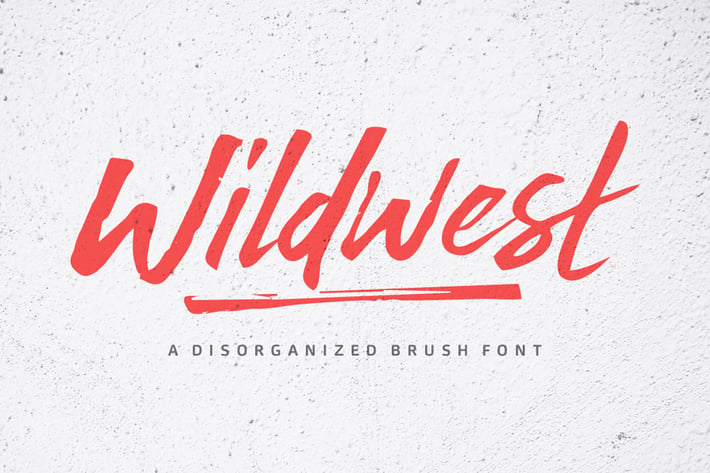
Wildwest Font
Wildwest is a brush font. Wildwest a very good for logotype, website header, fashion design, name tag, quotes, labels, t-shirts, packaging, and any more.
- Uppercase & lowercase
- Number & punctuation symbols
- Swashes
- International characters (Multilingual)